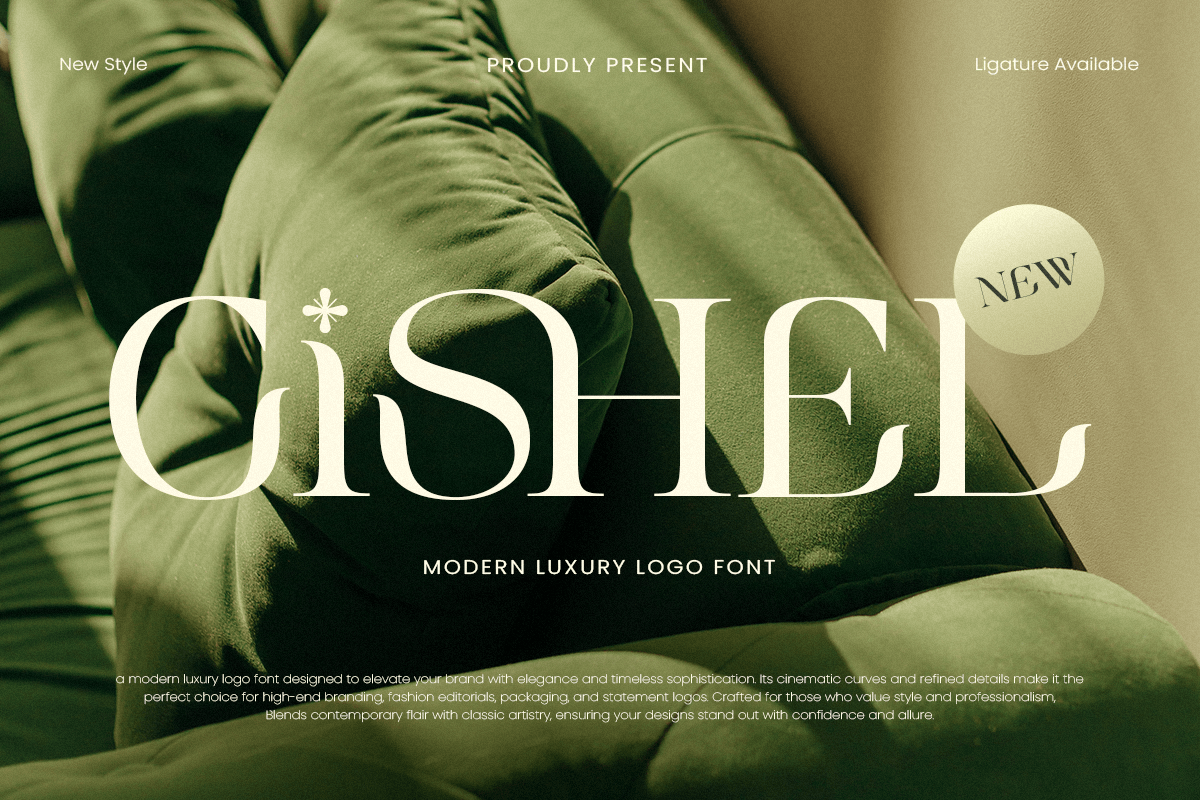
Gishel
-Modern Luxury Logo FontGishel is a modern luxury logo font that exudes sophistication and refinement. Perfect for high-end brands, fashion labels, premium products, and exclusive services, Gishel’s elegant serifs and clean lines create a timeless appeal that commands attention. Whether you're designing for a luxury brand, an upscale event, or an elite product line, Gishel brings elegance and class to any visual identity.
With its striking letterforms and balanced proportions, Gishel combines contemporary style with a luxurious aesthetic. Its versatility makes it ideal for everything from refined logos and branding to elegant invitations and editorial design. This font is all about making a statement of exclusivity and professionalism.
Gishel – Modern Luxury Logo Font Features:
Elegant serif letterforms with a modern touch
Perfect for luxury branding, high-end logos, and fashion design
Clean, sophisticated design with timeless appeal
OpenType features for advanced typographic styling
Multilingual support for a global reach
Elevate your brand with Gishel – the font that adds a touch of luxury and refinement to your designs. ✨💎